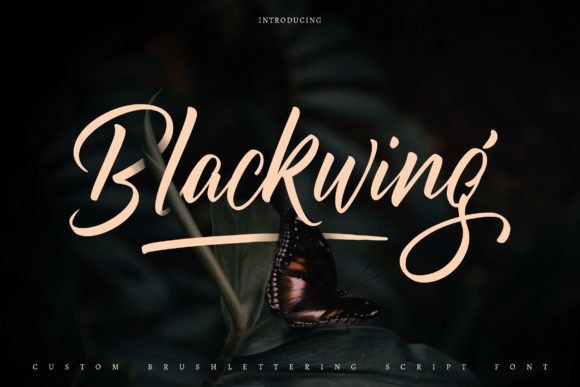
The Birth of a Masterpiece: Blackwing Font
Have you ever sat down with a blank page, a cup of coffee, and a spark of creativity that just refuses to be ignored? That’s exactly what happened to me when I first stumbled upon the Blackwing Font. The moment I laid eyes on its bold, flowing script, I knew I had to learn more.
Blackwing Font is a beautiful, handcrafted script designed to evoke the charm and character of a bygone era. Its purpose is to add a touch of elegance and sophistication to any design project, from wedding invitations to advertising campaigns. For designers, Blackwing Font is a valuable tool that can help bring a project to life with its unique charm and personality.
Blackwing Font Key Features
- Font Family: Blackwing is a calligraphic script font designed by James Lumsden, first released in 2014.
- Unique Characteristics: The font features elegant, flowing lines and subtle flourishes, giving it a distinctive and sophisticated look.
Designer Review: Blackwing Font
Overall, I have mixed feelings about the Blackwing font. While it’s a unique and intriguing typeface, it has its limitations that might make it challenging to use in certain projects.
- The font’s vintage aesthetic is a major selling point. It’s perfect for projects that require a touch of nostalgia or a classic feel.
- Blackwing is highly legible, making it suitable for body text or long-form content.
- The font’s subtle irregularities add character and visual interest to text, making it stand out from more uniform typefaces.
- The font’s condensed width can make it difficult to read at smaller sizes, especially for those with visual impairments.
- Blackwing’s irregularities can also make it challenging to use in situations where precision and uniformity are crucial, such as in technical documentation or financial reports.
- The font’s vintage feel might not be suitable for all projects, particularly those that require a modern or minimalist aesthetic.
While Blackwing is a distinctive and charming font, its limitations might make it less versatile than other typefaces. However, its unique aesthetic and legibility make it a great choice for projects that require a touch of nostalgia or classic feel.
Getting the Most Out of Blackwing Font
To get the most out of the Blackwing font, try using it for:
– Titles and headings for a touch of elegance.
– Branding and logos for a unique look.
– Creative writing and poetry for a touch of sophistication.
The Blackwing font is commonly used for:
– Artistic and creative projects.
– Luxury and high-end branding.
– Vintage-inspired designs.
Alternatives to Blackwing Font for Designers
Alejandro
Alejandro is a modern sans-serif font that is ideal for digital design, branding, and advertising. It is highly legible and versatile, making it suitable for various applications. Alejandro has a similar feel to Blackwing Font, with a clean and sleek appearance, but it has a slightly more geometric and futuristic look.
Montserrat is a geometric sans-serif font that is perfect for urban and modern designs. It is highly legible and has a strong typographic presence, making it suitable for headlines, titles, and body text. Montserrat has a similar urban feel to Blackwing Font, but it has a more angular and geometric appearance.
Montserrat Alternates
Montserrat Alternates is a variation of the Montserrat font that offers a more elegant and refined look. It is ideal for designs that require a high level of sophistication and elegance. Montserrat Alternates has a similar feel to Blackwing Font, but it has a more refined and luxurious appearance.
Q: Are there any font pairing recommendations for the Blackwing Font?
The Blackwing Font is a versatile font that can be paired with a variety of other fonts. Some popular pairing recommendations include pairing it with a sans-serif font like Open Sans or Lato for a modern and clean look, or pairing it with a script font like Pacifico or Great Vibes for a more elegant and sophisticated look.